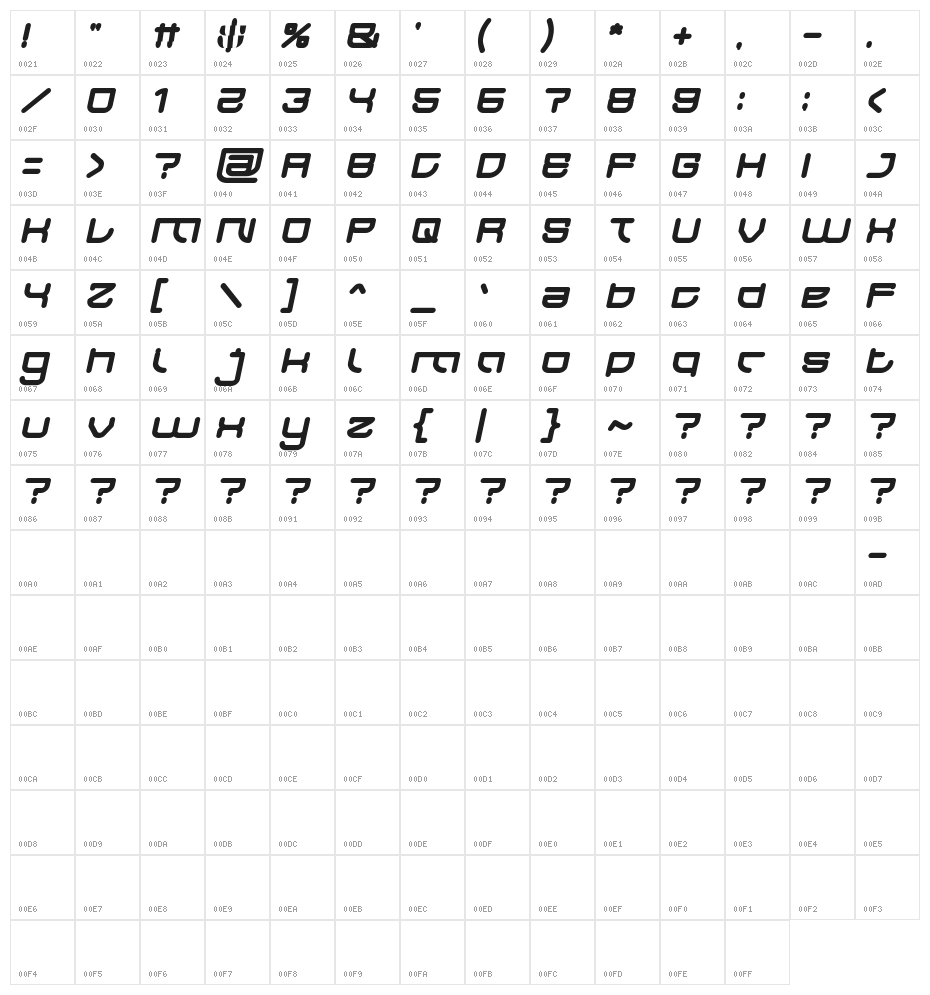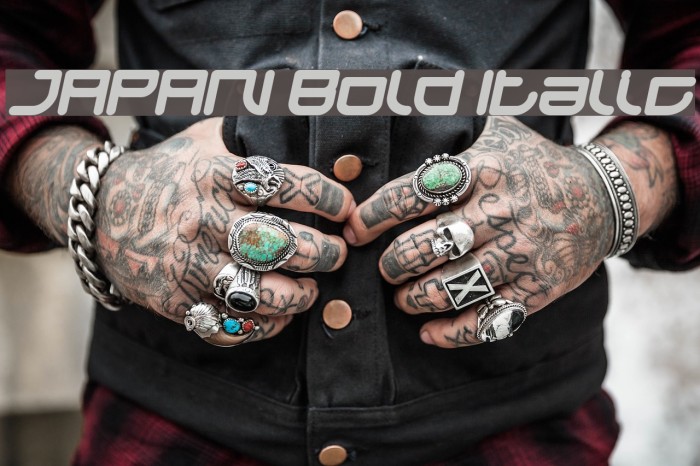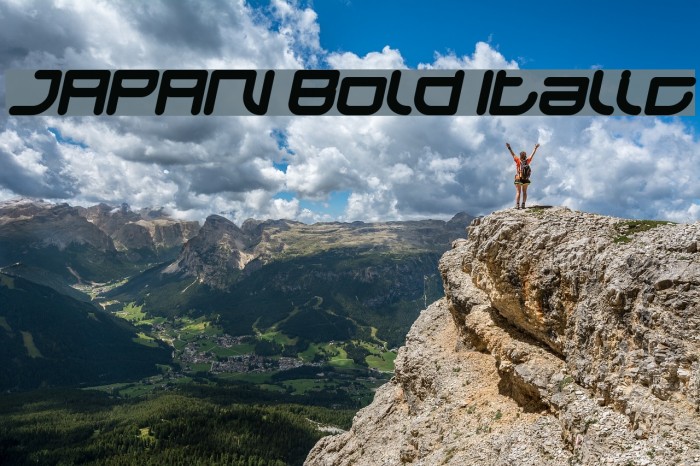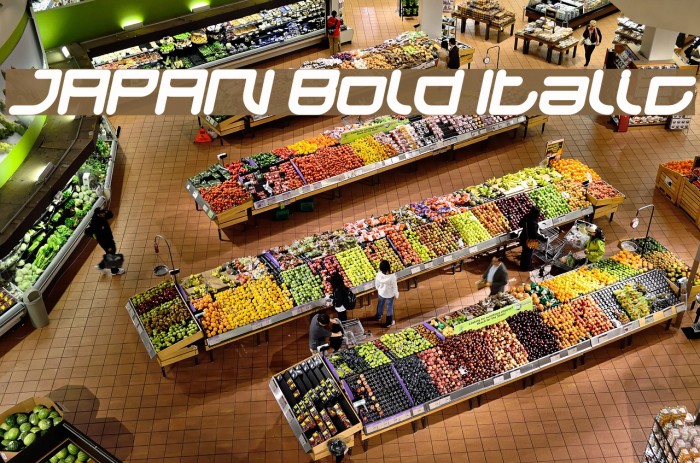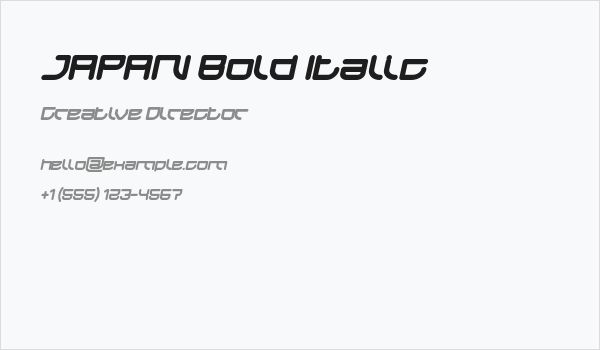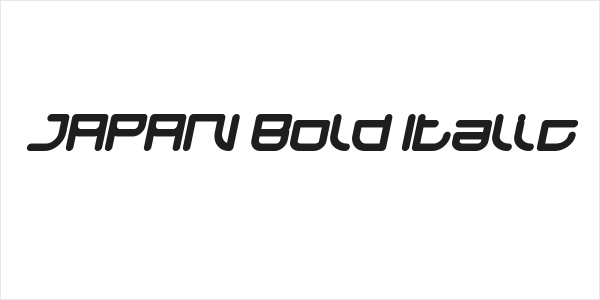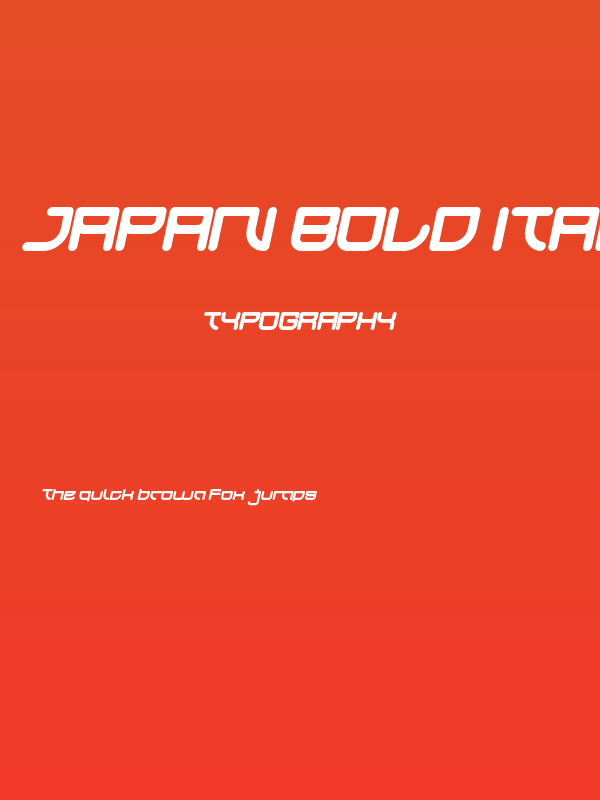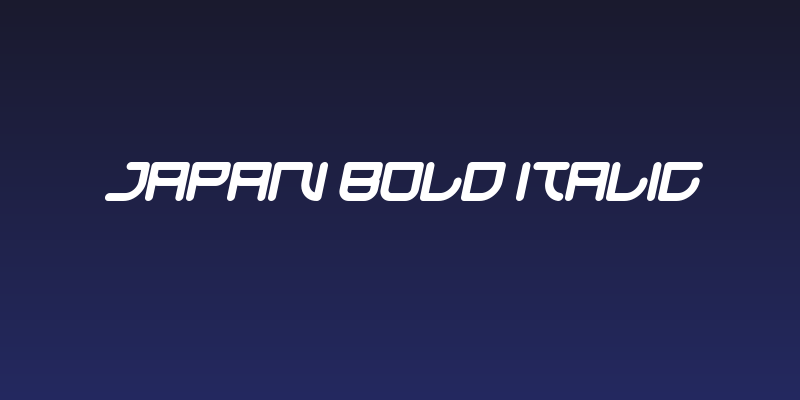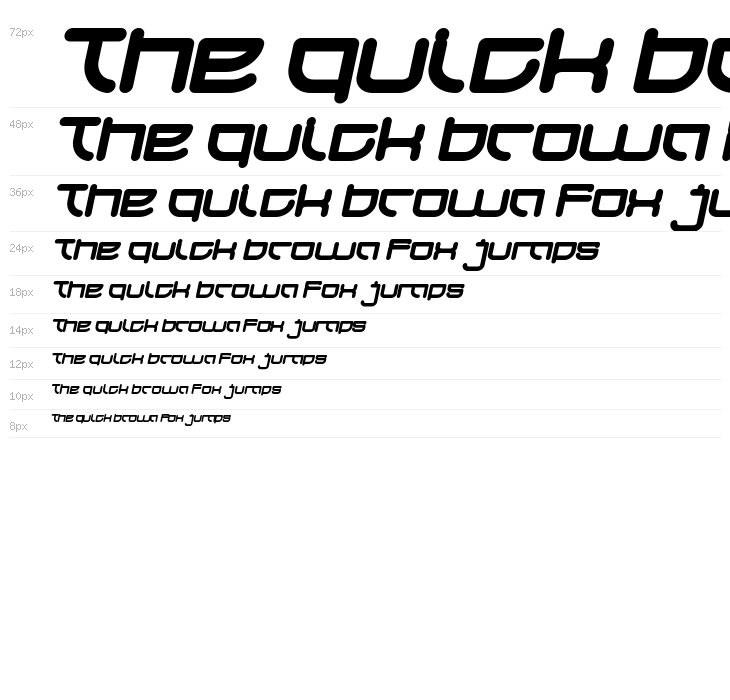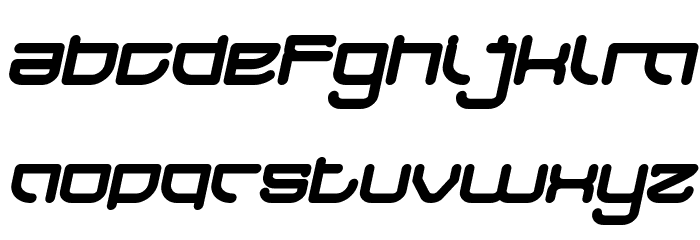
JAPAN Bold Italic Font
✎ Futuristic
JAPAN Bold Italic Description
This font features a bold and italicized style with a futuristic and sleek appearance. The characters are slightly slanted, giving a sense of motion and dynamism. The strokes are thick and consistent, providing a strong visual impact. The rounded edges of the letters soften the overall look, making it approachable yet modern. The spacing between characters is tight, which enhances the compact and cohesive feel of the text. This font is ideal for projects that require a contemporary and energetic aesthetic.
| Proposed Projects | Ideal for technology branding, sports team logos, modern advertising, and dynamic headlines. |